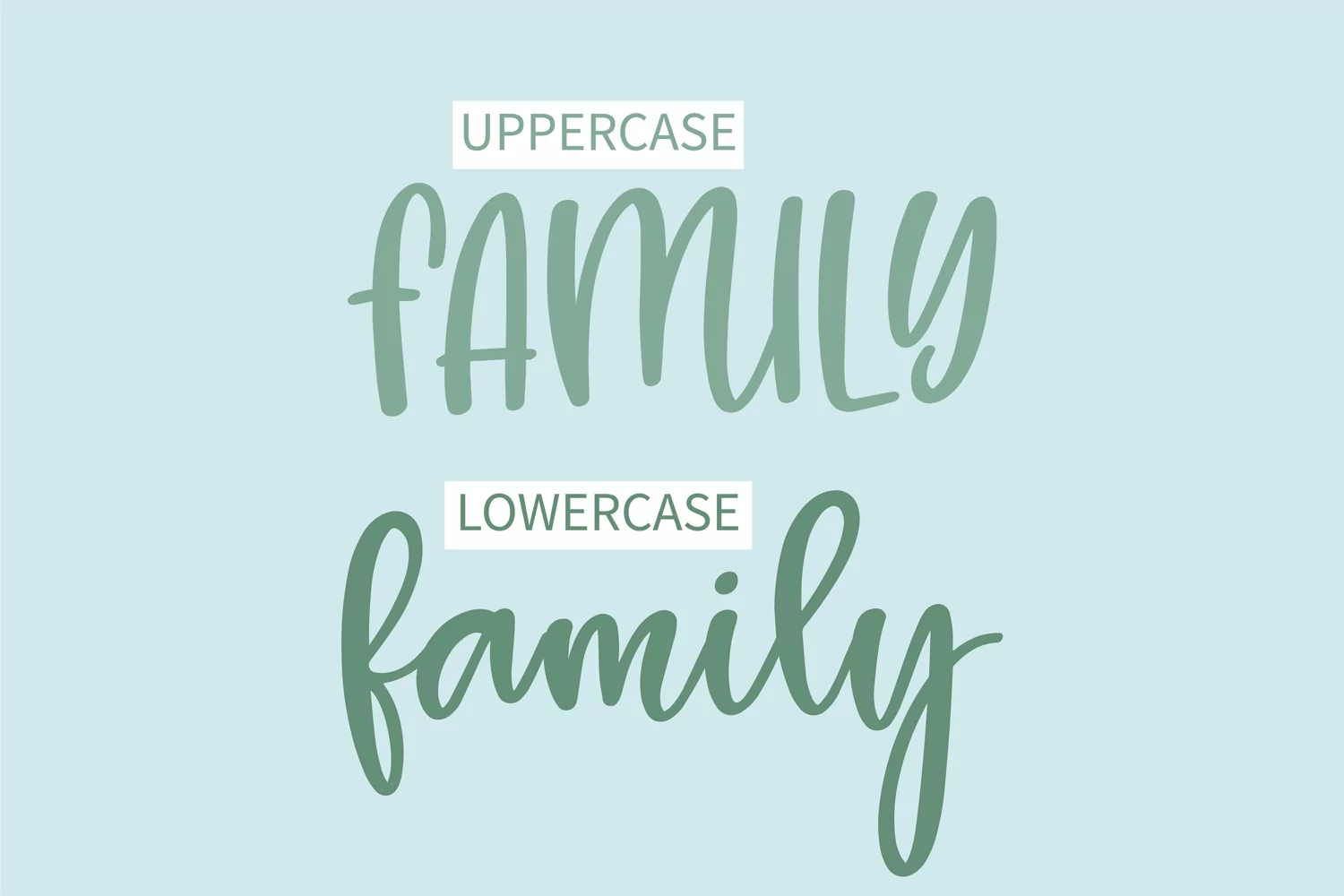
Macia feels equally delicate and refined. It looks lovely on wedding invitations, thank you cards, quotes, greeting cards, logos, business cards, and every other design which needs a customized touch.
Macia